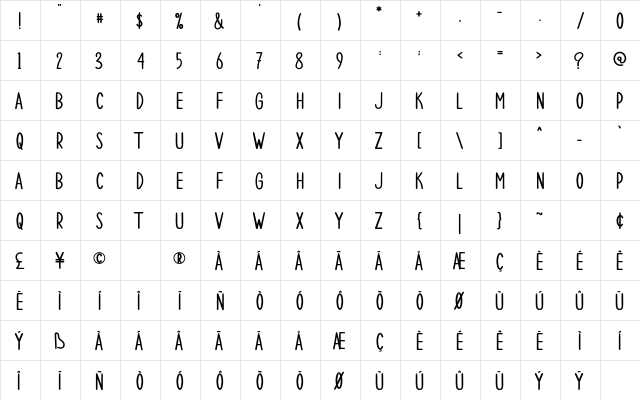
CHRISTMAS DAY Regular Font Preview
CHRISTMAS DAY Regular
Design Context for CHRISTMAS DAY Typeface
CHRISTMAS DAY is a composed and adaptable typeface that performs quietly and consistently across a wide range of design contexts.